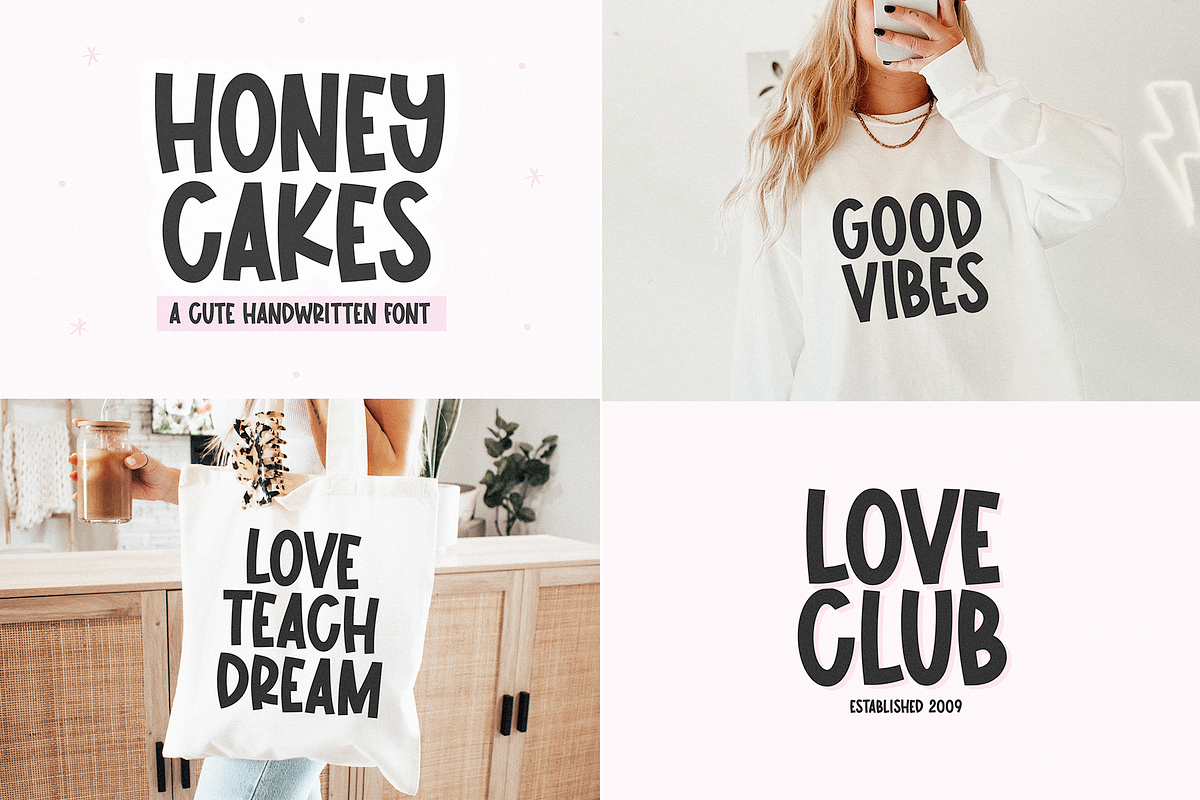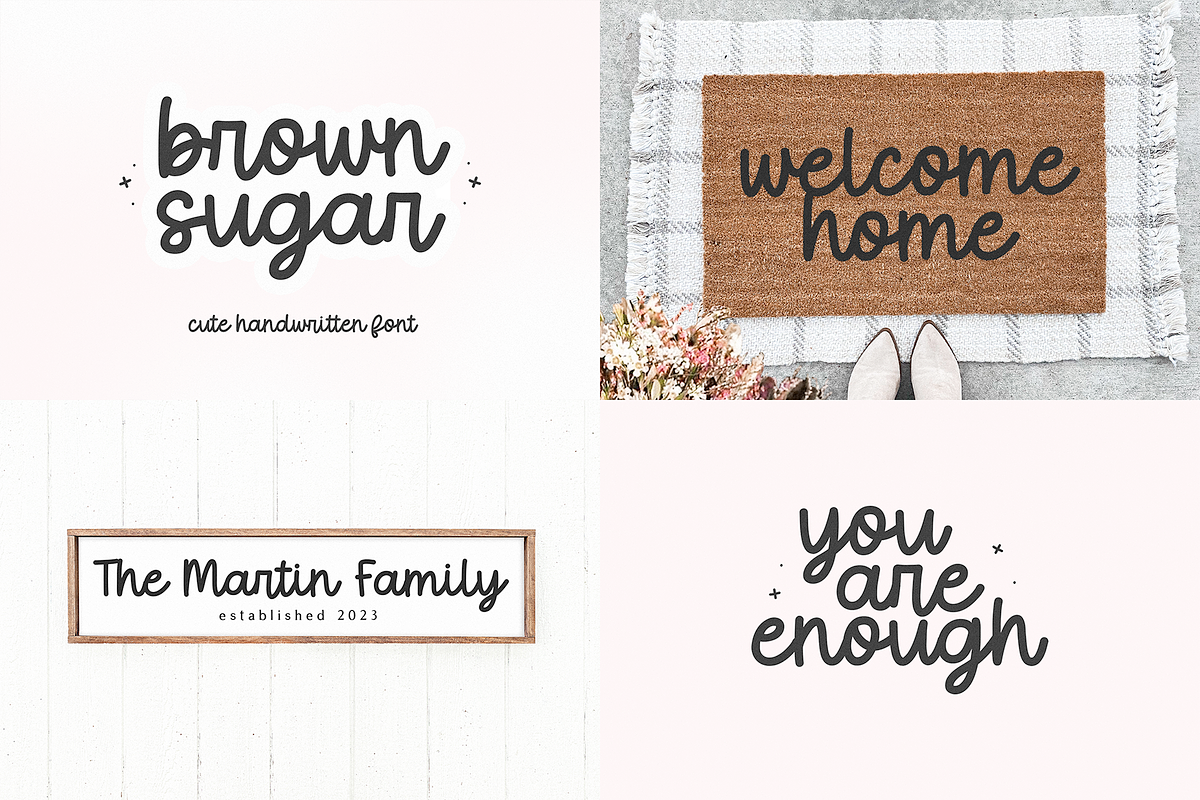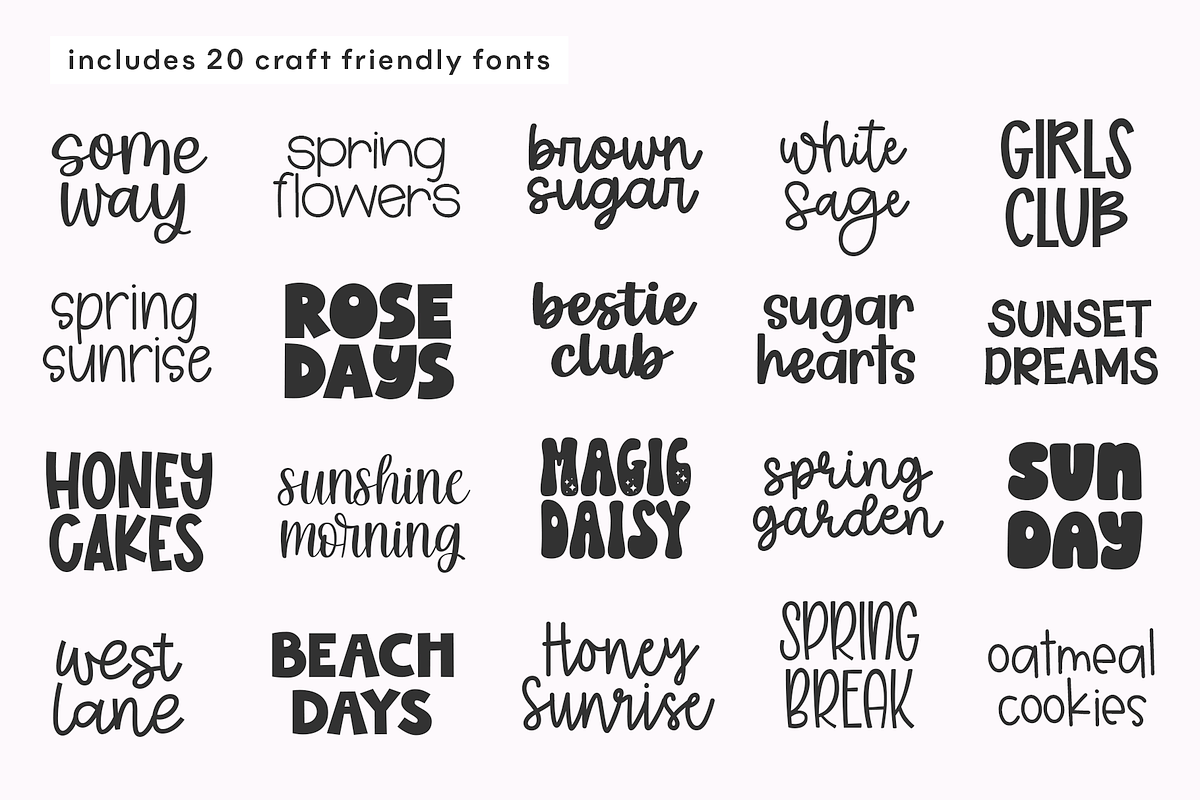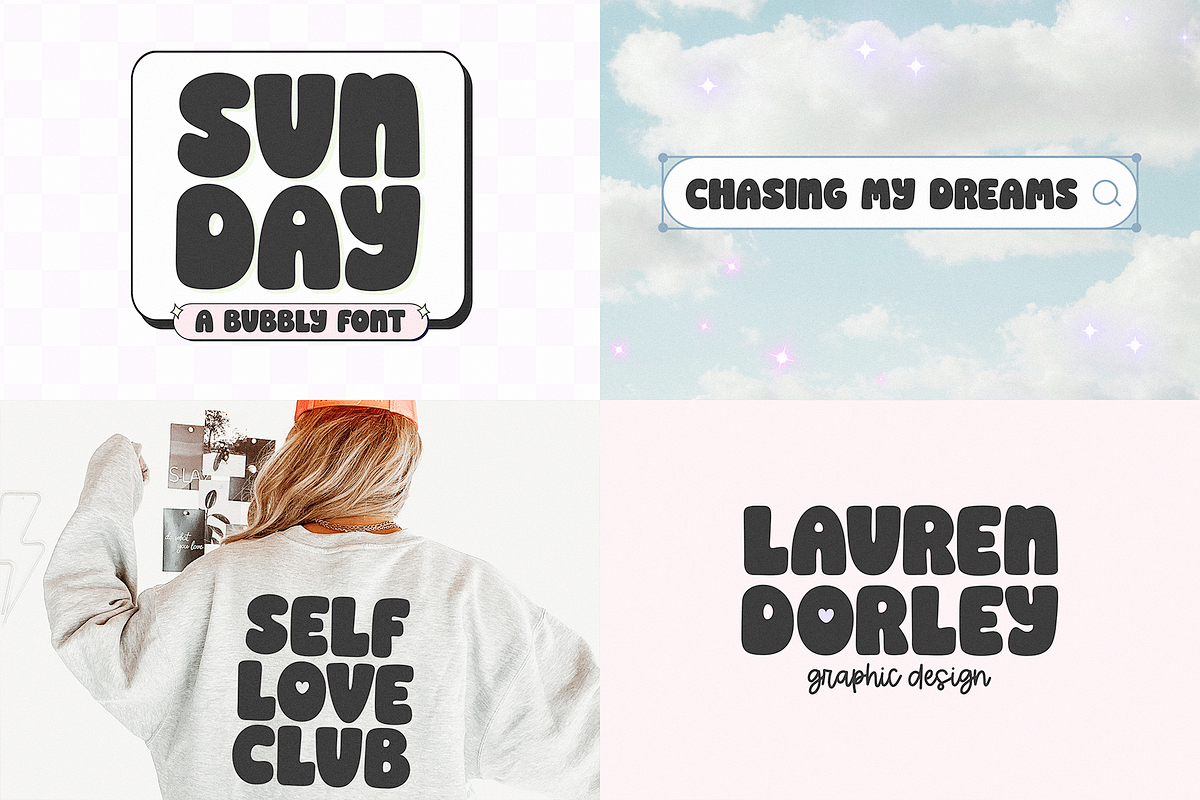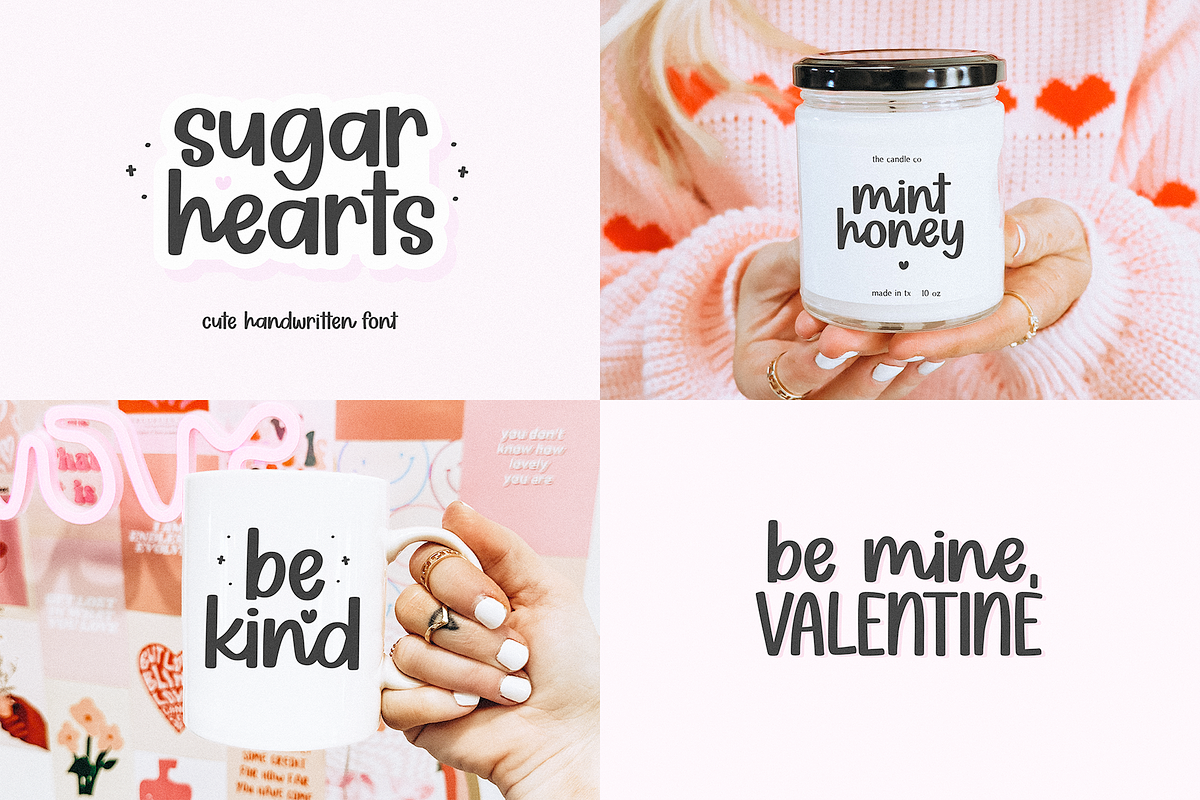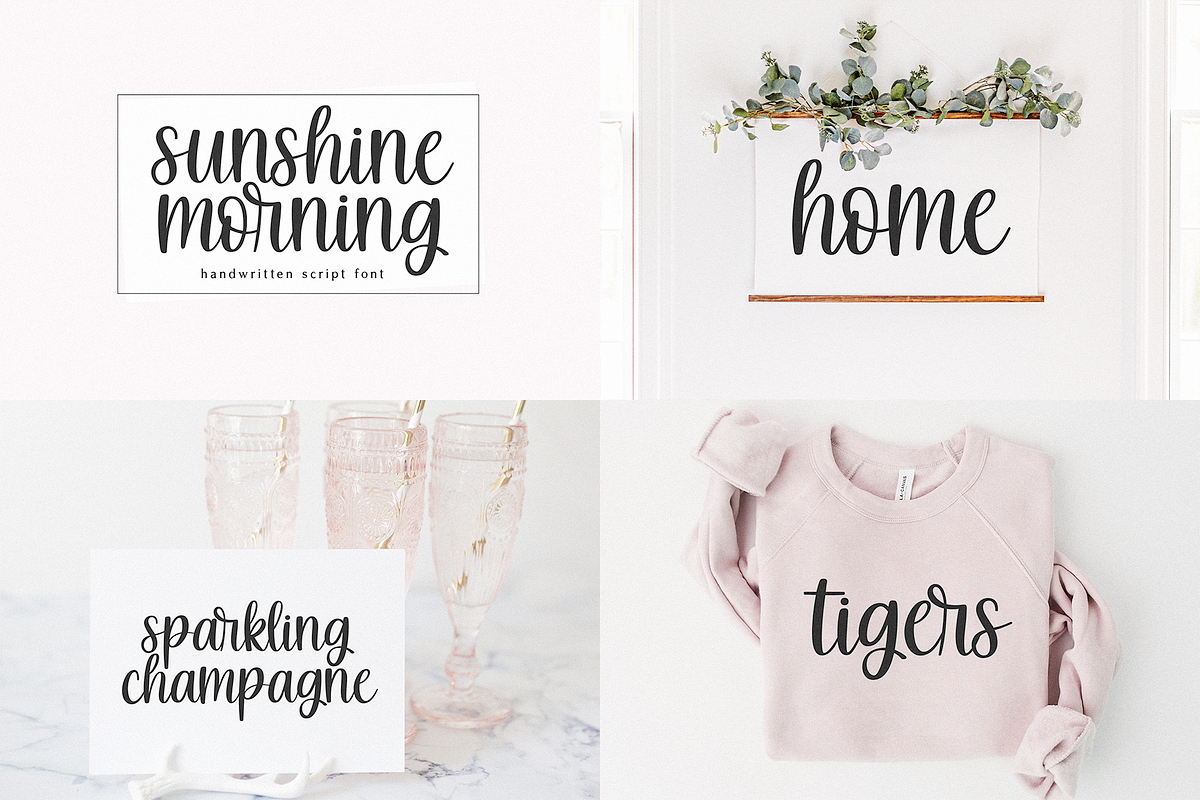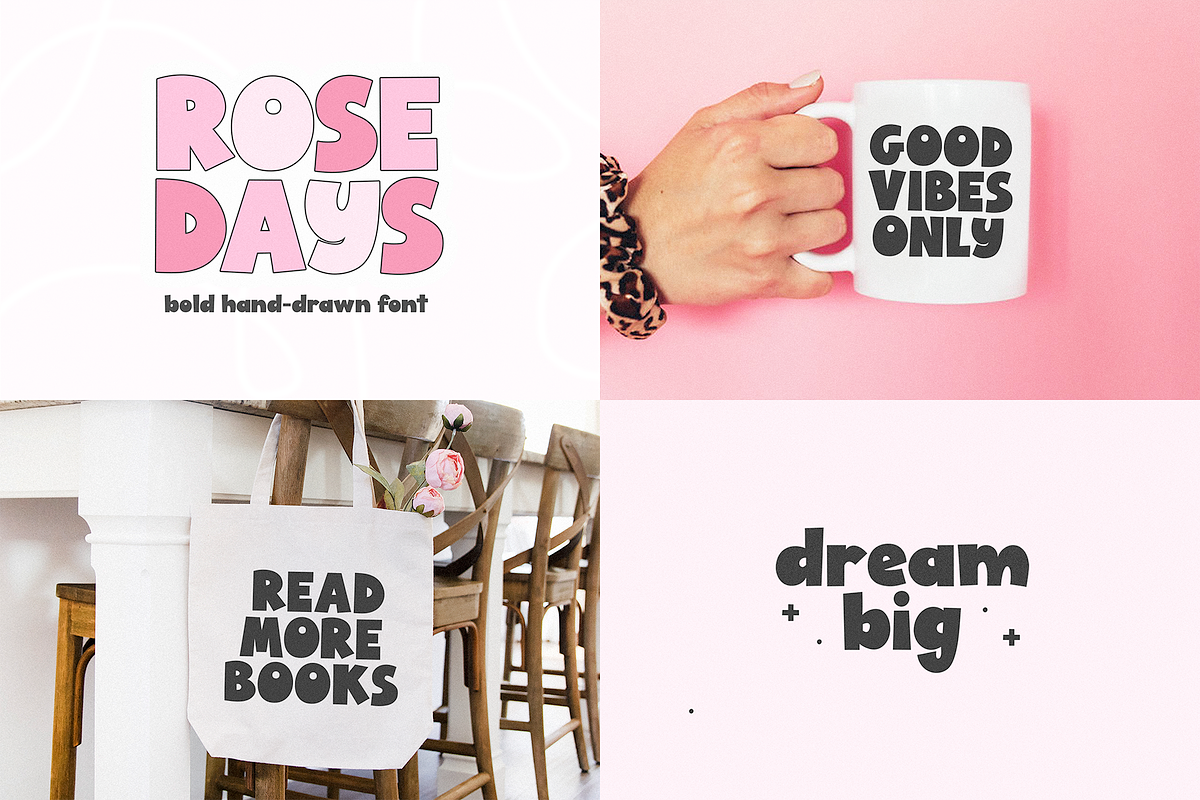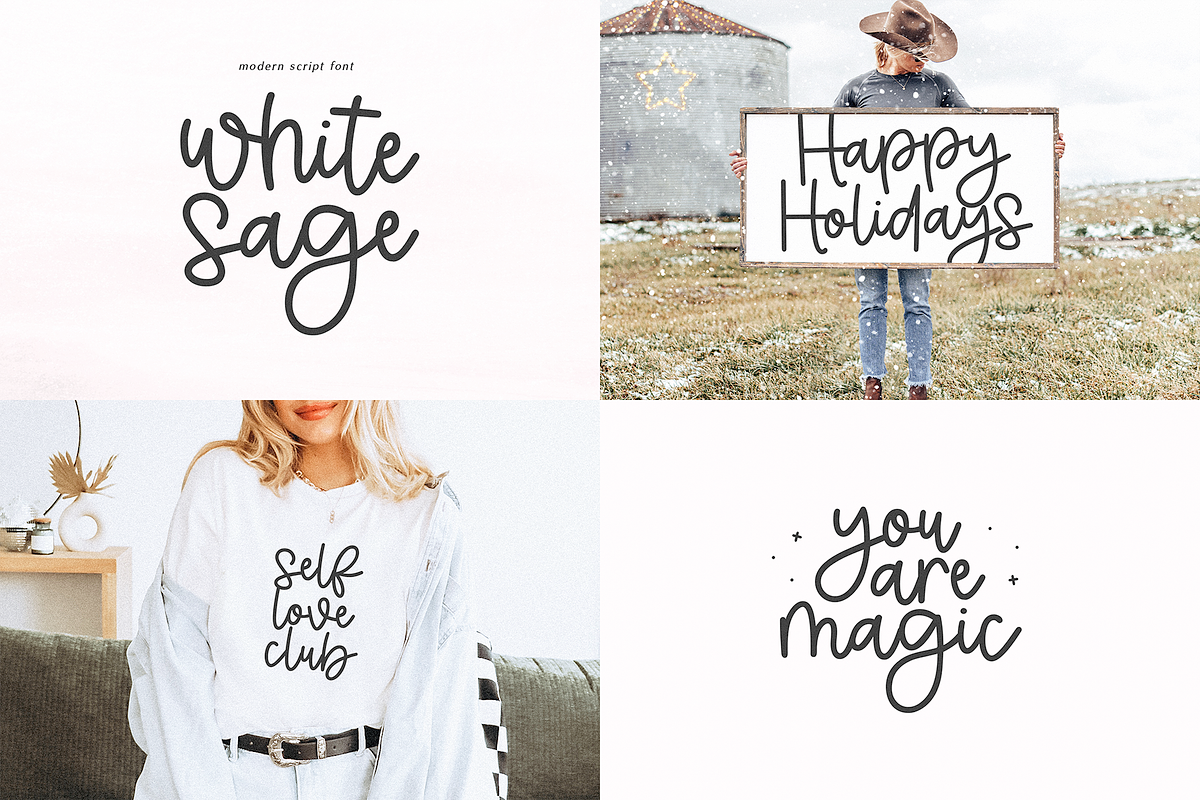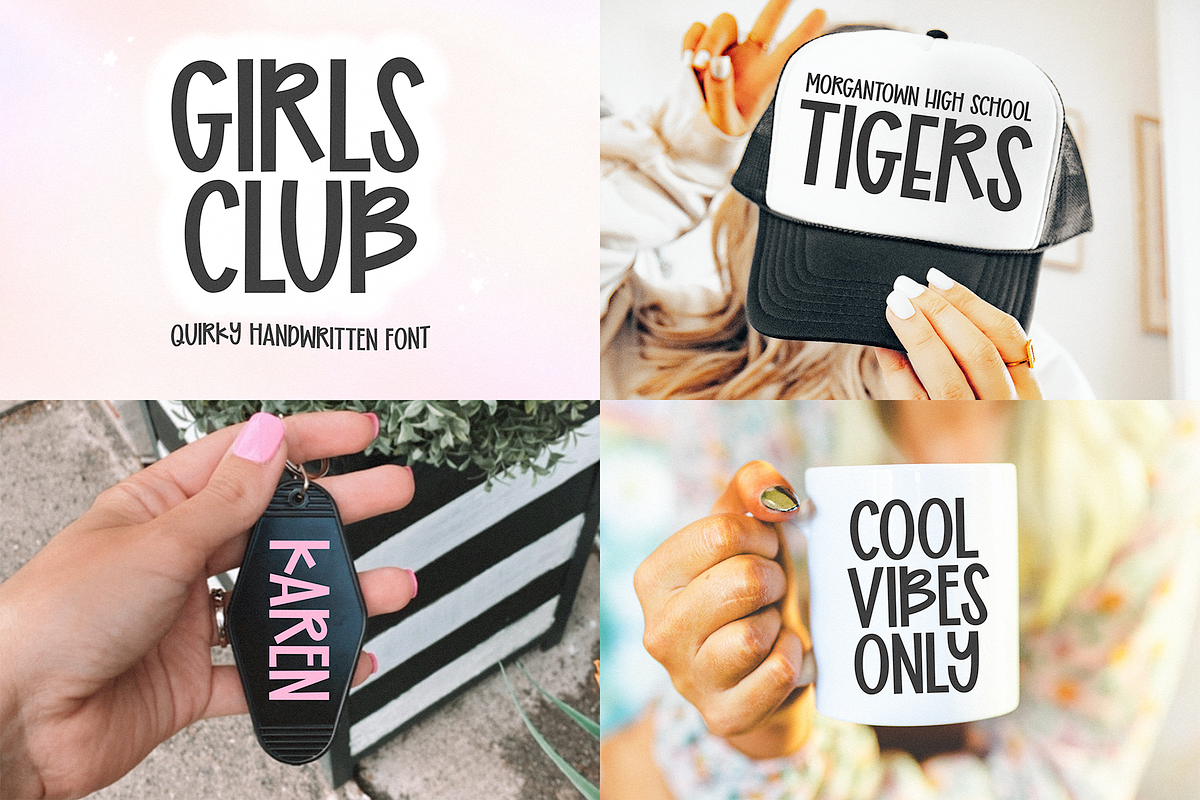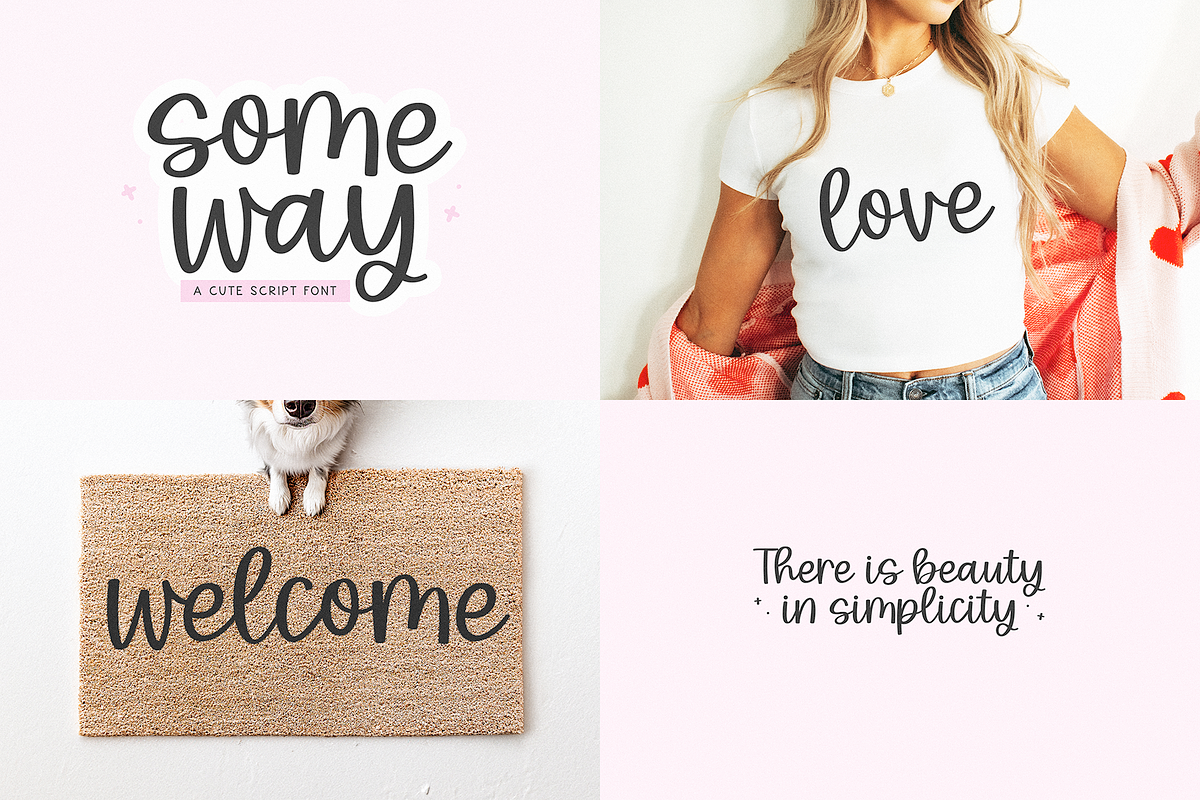
Cute Font Bundle | 20 Fonts
THE CUTE & CRAFTY FONT BUNDLE
This bundle includes a handpicked selection of fonts - a little bit of everything + some new fonts! Even if you already own a font or two, this bundle is still a huge discount!
Fonts Included
Brown Sugar
Girls Club
Honey Sunrise
Bestie Club
White Sage
Someway
Honey Cakes
Spring Flowers
Rose Days
Sugar Hearts
Sunshine Morning
Beach Days
Spring Break
Magic Daisy
West Lane
SunDay
Spring Garden
Sunset Dreams
Spring Sunrise
Oatmeal Cookies
There are unlimited ways that you can use this bundle!
For example - svg quotes, stickers, cricut projects, farmhouse signs, shirts, mugs, doormats, keychains, door hangers, invitations, branding, social media, logos and more!